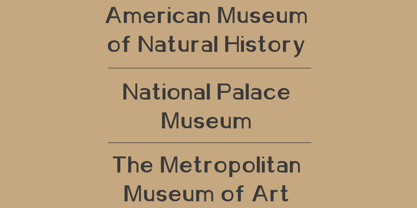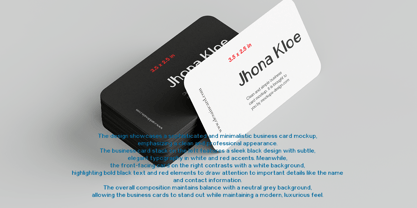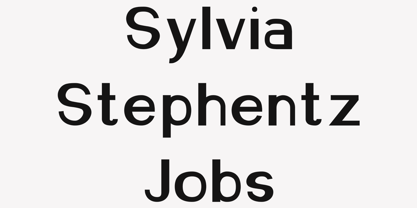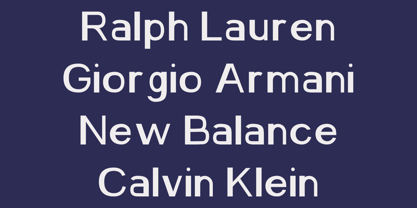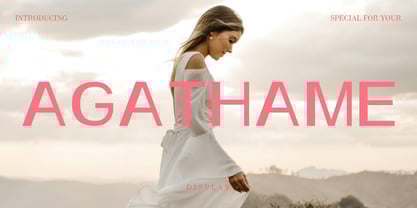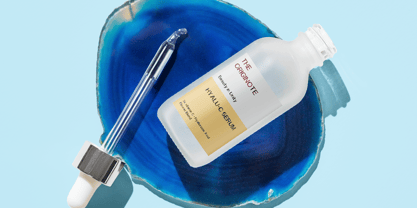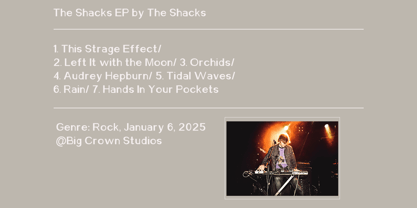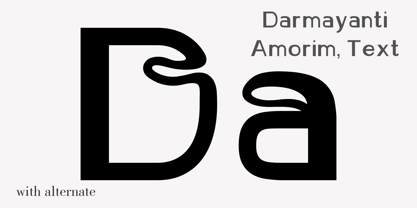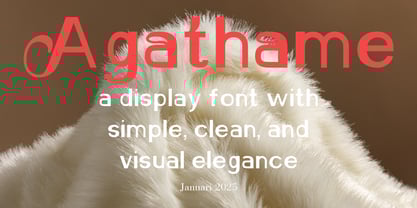
Agathame
by Zaki Creative
The Agathame Font Family was designed by Teuku Muhammad Zaki and published by Zaki Creative. Agathame contains 1 styles.
The "Agathame" font display is a modern, elegant typeface designed for high-impact visual projects. Its clean lines and bold presence make it perfect for fashion editorials, luxury branding, or statement headers in websites and print media. The stylish yet minimalistic design also fits well in social media campaigns, magazines, event posters, and promotional banners, providing a sleek and professional look.
Uses:
• Fashion and beauty branding
• High-end product packaging
• Editorial and magazine covers
• Luxury website headers
• Event posters
• Invitations or promotional material